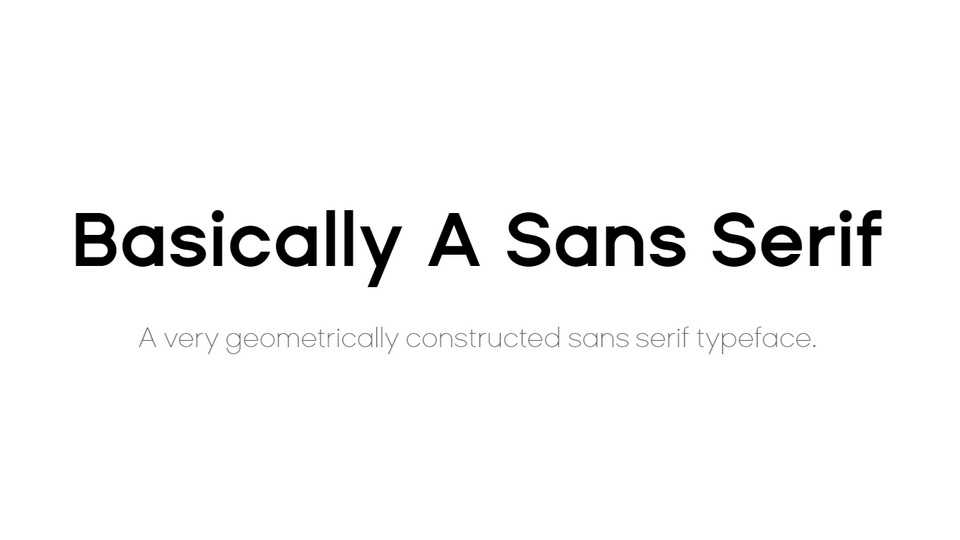
Download Basically A Sans Serif (BASS) typeface, a monolinear geometric sans serif font family in 9 weights designed for display use, but also works well in logos due to the very geometric nature of the typeface.
Designer: Mental Design